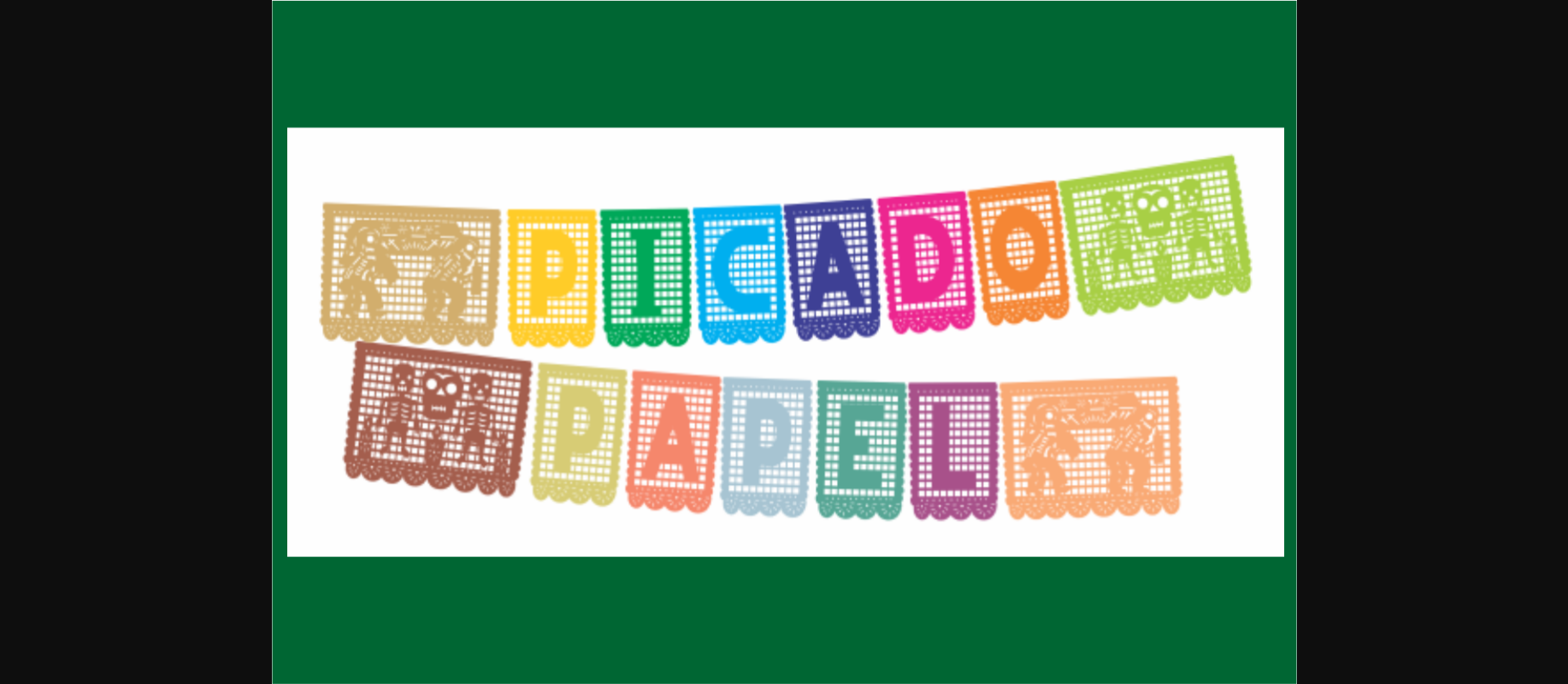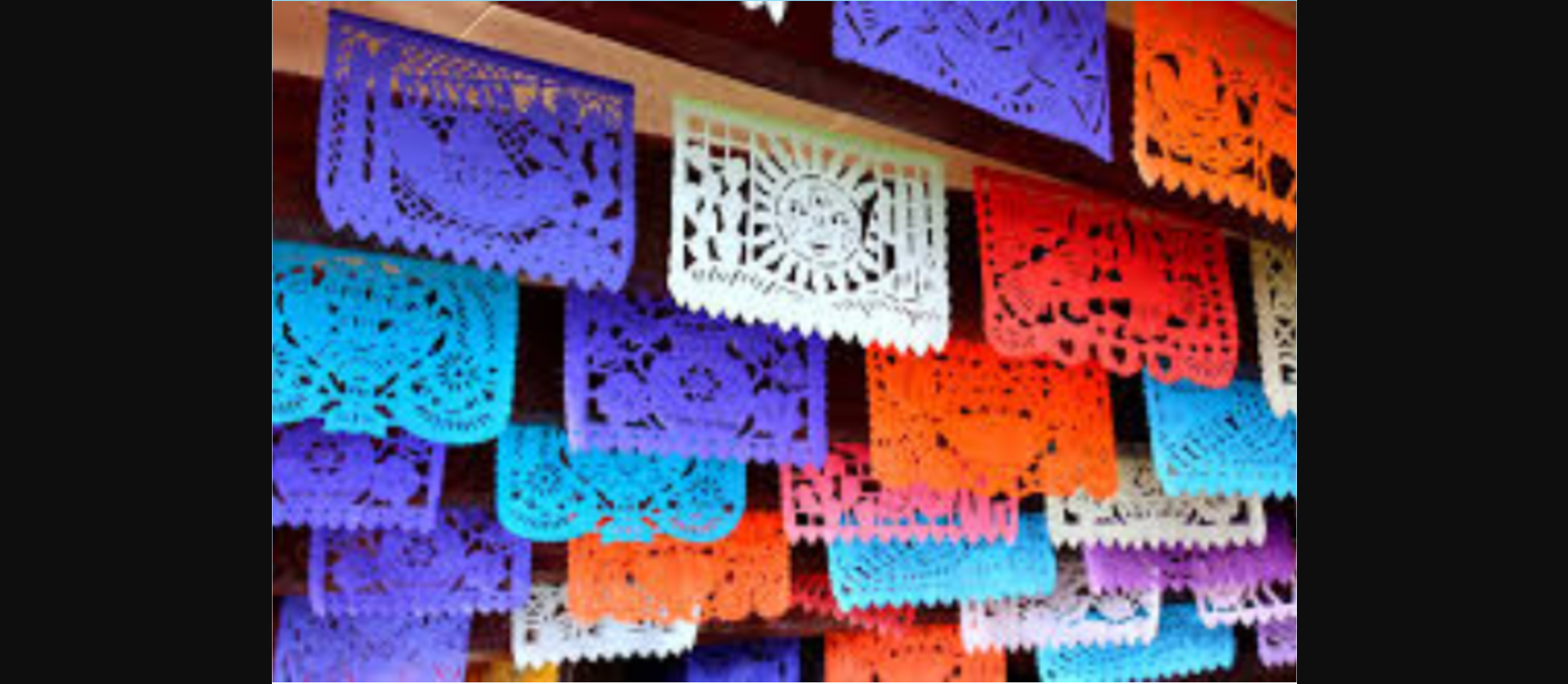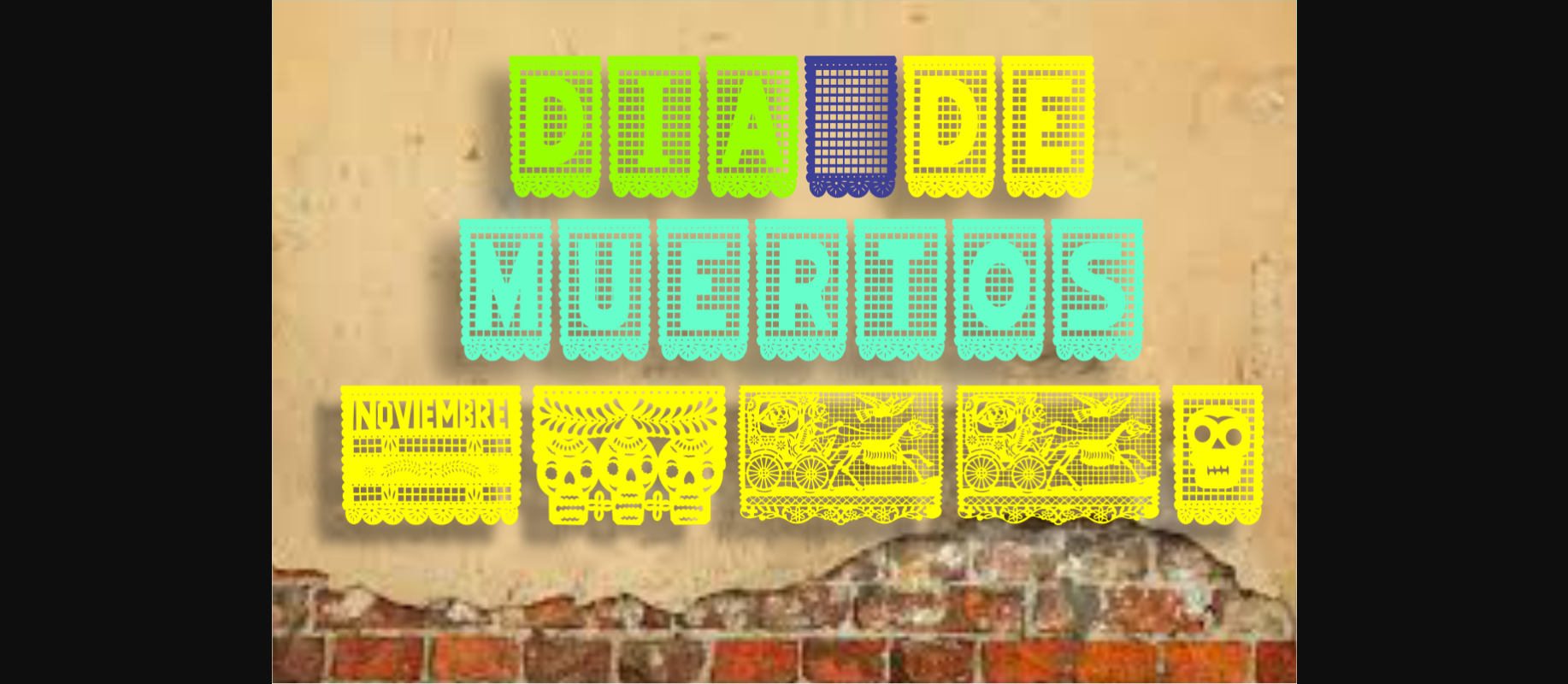
About Papel Picado Font
This font is inspired by the chopped paper that is used in Mexico in Day of the Dead festivities or in some town festivals.
The technique of Papel Picado originated in China, but in Mexico, it acquired a very important ritual meaning… Mexican artisans made this art something typical… part of folklore